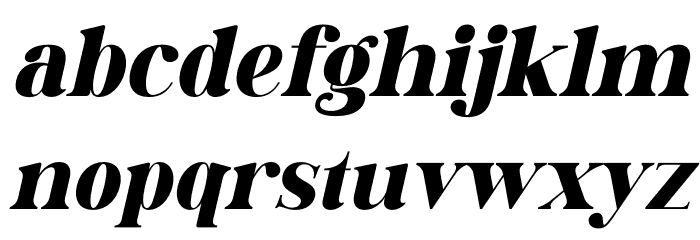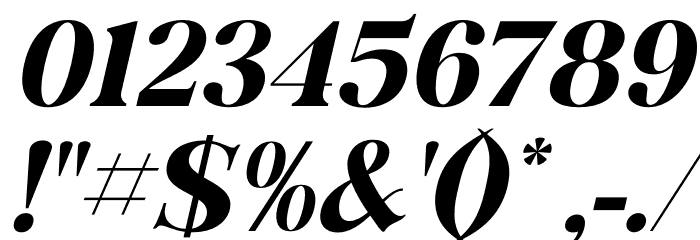
Daretro Mandra Italic Font
This font exhibits a dynamic and elegant style with a pronounced italic slant, giving it a sense of movement and sophistication. The characters are bold with high contrast between thick and thin strokes, enhancing readability while maintaining a stylish appearance. The serifs are sharp and well-defined, contributing to a classic yet modern aesthetic. The uppercase letters are commanding and impactful, while the lowercase letters maintain a graceful flow. Numbers and special characters are designed with the same attention to detail, ensuring consistency across all elements.
A bold, high-contrast italic serif font with elegant, sharp serifs.
- Font: Daretro Mandra Italic
- Proposed Projects: Ideal for luxury branding, editorial design, fashion magazines, and elegant invitations.
- Category: Serif
- Use Case: Headlines, Logos, Editorial design